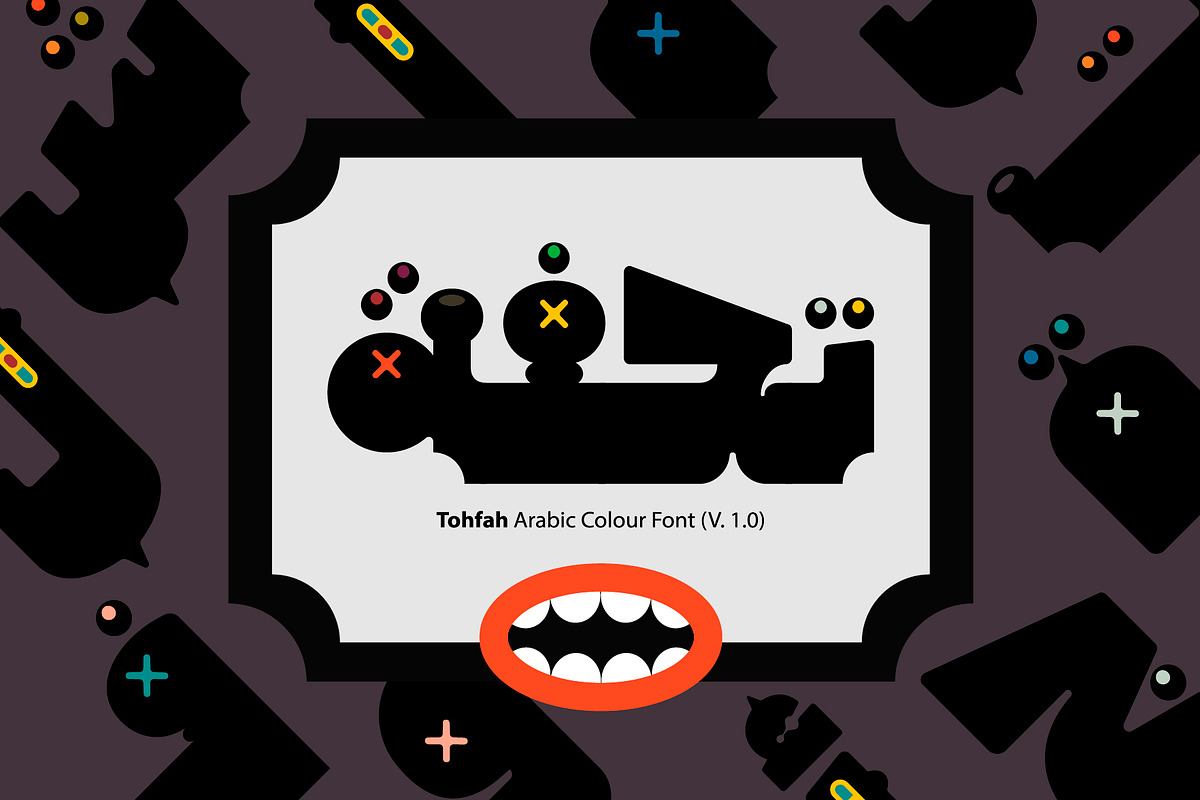
Tohfah - Arabic Colour Font Free Download is a vibrant and artistic typeface that brings a unique, colorful twist to Arabic script. Perfect for cultural projects, event promotions, modern branding, and creative designs, this font combines traditional Arabic calligraphy with a bold, colorful aesthetic. The intricate details and dynamic color application make it ideal for high-impact headlines, posters, logos, and more. Whether you're working on a Middle Eastern festival, a modern Arabic brand, or a cultural campaign, Tohfah - Arabic Colour Font Free Download lets you explore its vibrant beauty in personal projects before purchasing a commercial license. Add a splash of color and cultural richness to your designs with this beautifully crafted Arabic font.